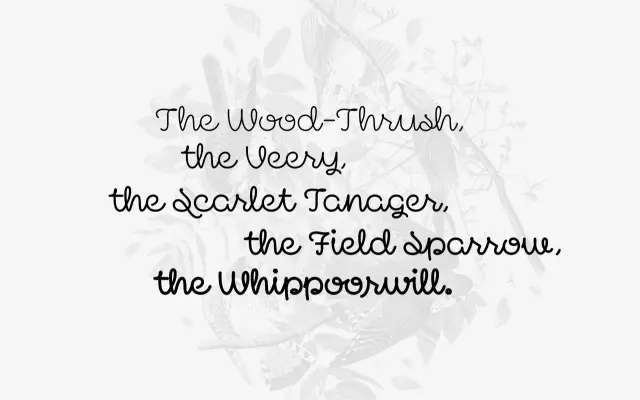
Mielle CF
A near-monolinear cursive script with subtle stroke modulation, designed for logos, signage and casual branding work.
Six weights from Light to Heavy are available alongside a variable font, with the near-monolinear strokes giving the family a clean, honey-like warmth. Ligatures, contextual alternates and multiple stylistic sets allow for more convincingly handwritten settings. Language support covers Latin Extended and Vietnamese, spanning over two dozen languages including Catalan, Polish and Turkish.
A connected cursive script with a near-monolinear stroke, drawn to evoke casual handwritten lettering. The flowing joins, swash alternates and stylistic sets confirm its classification as a cursive script typeface.